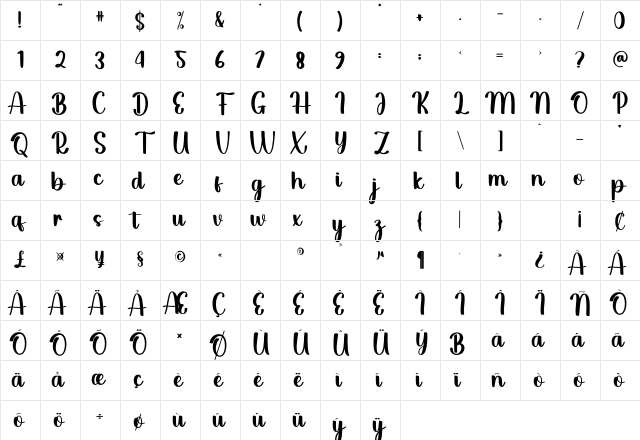
Baby Gladys Regular Free Font
Baby Gladys Regular
Design Context for Baby Gladys
Baby Gladys is a composed and adaptable typeface that performs quietly and consistently across a wide range of design contexts.